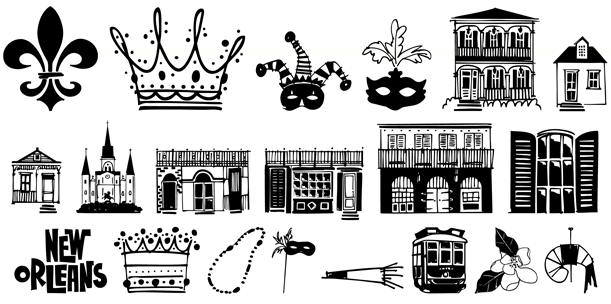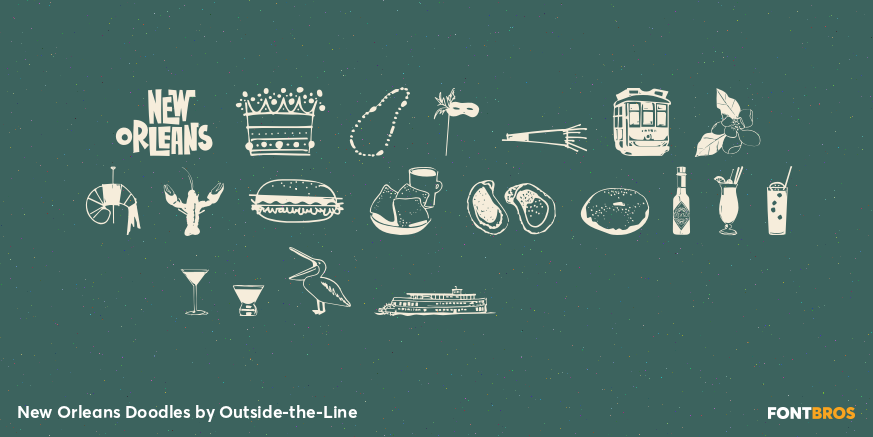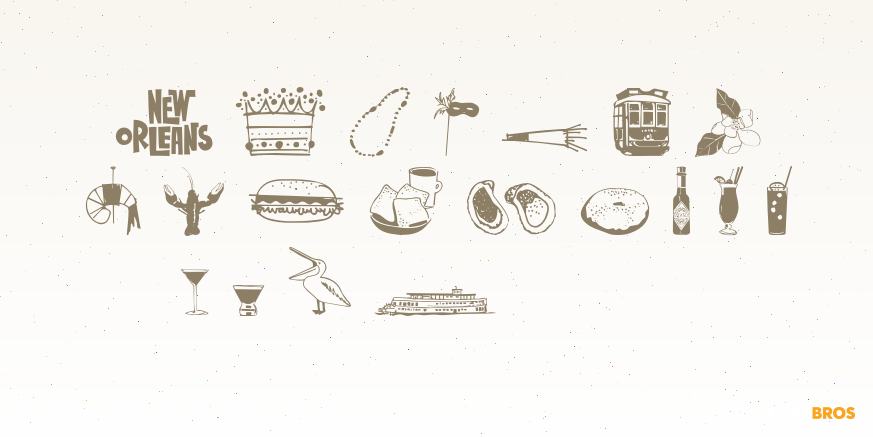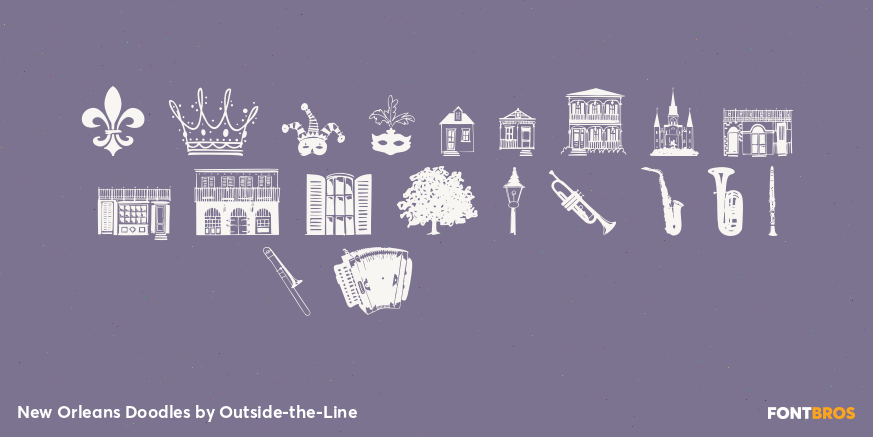
New Orleans Doodles
Font Family by Outside-the-Line
This font is almost as much fun as a trip to NOLA. 40 illustrations that cover Mardi Gras and food, with buildings, trolley, paddle wheel, pelican and musical instruments. The instruments and adult beverages are universal. Plus a hand lettered New Orleans. A lot of variety in this collection.